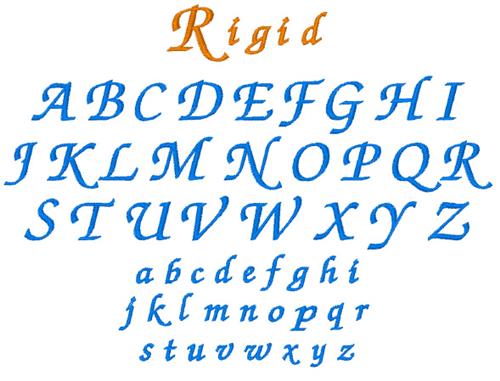
Internet Stitch is happy to present Rigid machine embroidery font which has This flowing script machine embroidery font displays graceful curves with a slightly slanted appearance, ideal for personalizing projects on clothing or bags. Available in ELP formats. included. If you would like to view more embroidery fonts and alphabets please search our embroidery fonts page.